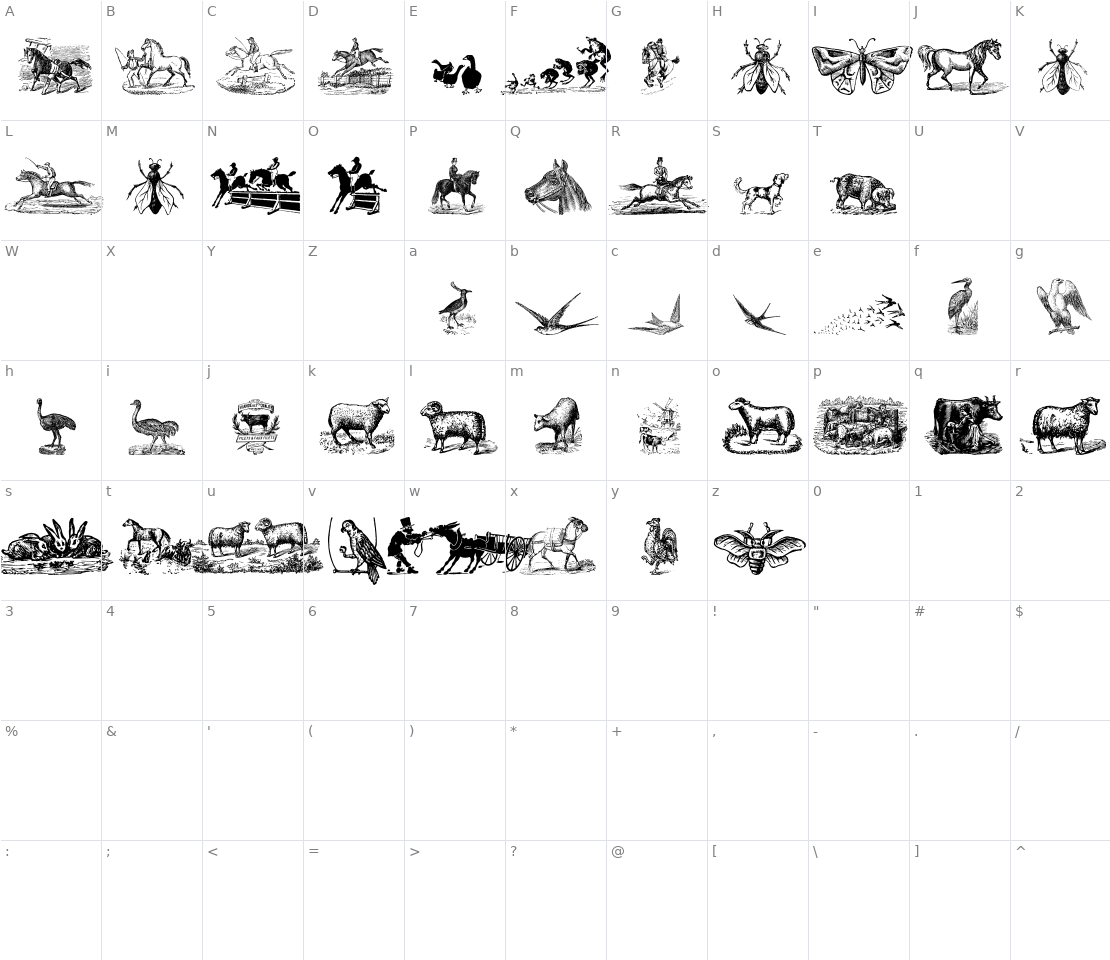
Animals Old Cuts Two
Animals Old Cuts Two is a decorative dingbat font from Intellecta Design, with each character replaced by a detailed animal illustration in the style of antique woodcut engravings. The figures have that rich, hand-carved texture you'd find in 19th-century natural history books, full of fine hatching and tonal depth. Useful for ornamental borders, spot illustrations, chapter decorations, or anywhere a bit of vintage zoological charm is called for.